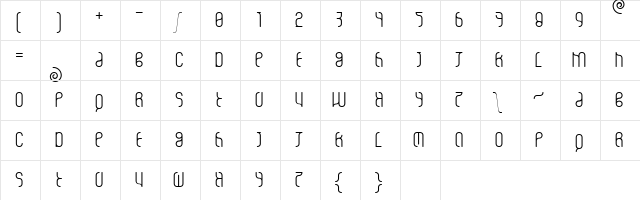
overegular Regular Font Preview
overegular Regular
Design Context for overegular Typeface
overegular offers clean, dependable letterforms without strong stylistic allegiance, making it a practical choice for designers who need flexibility.